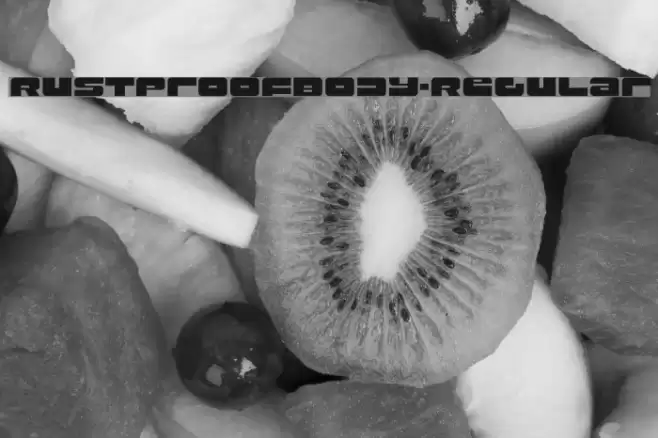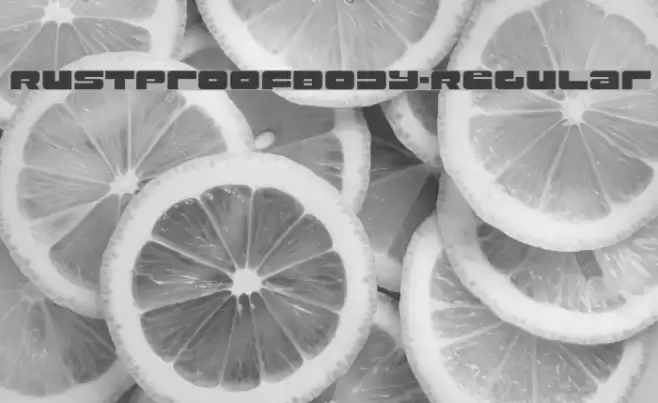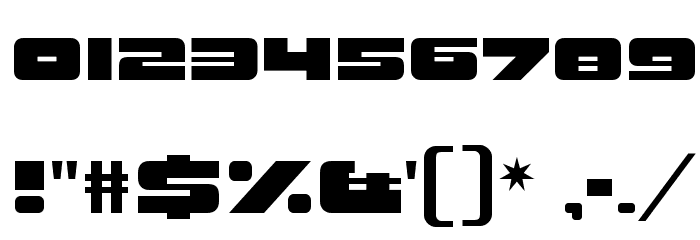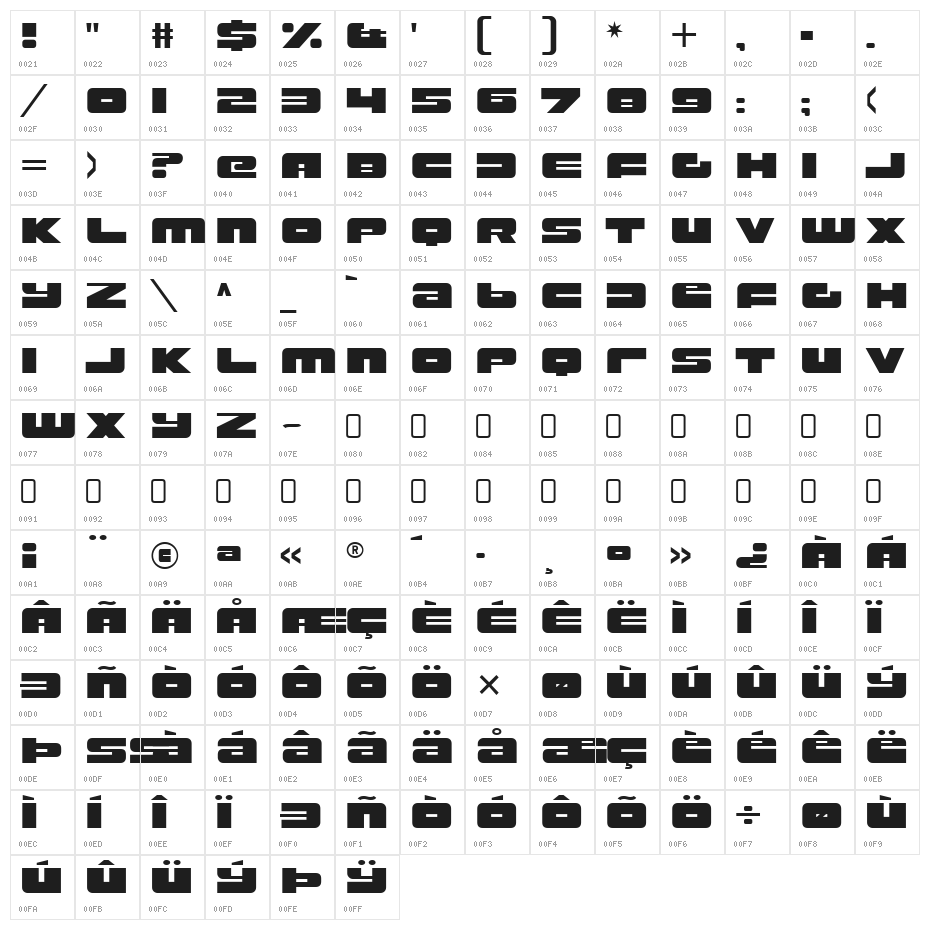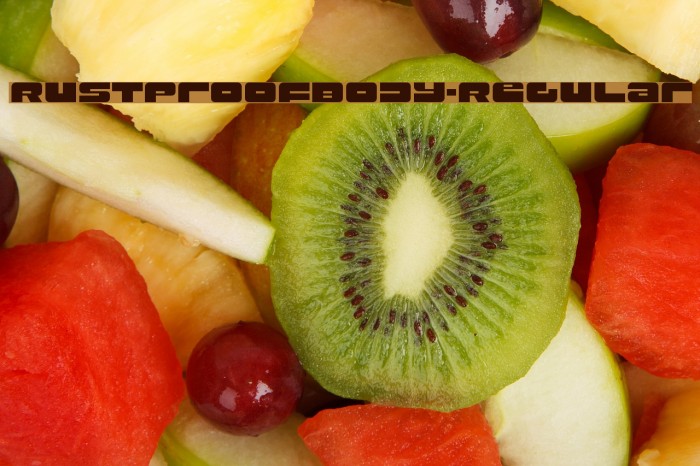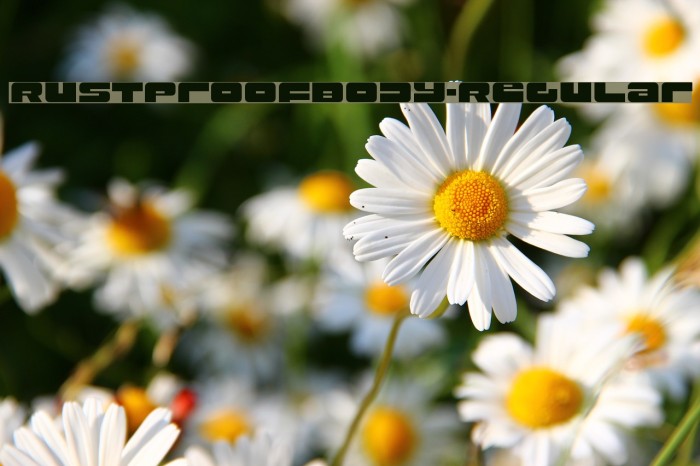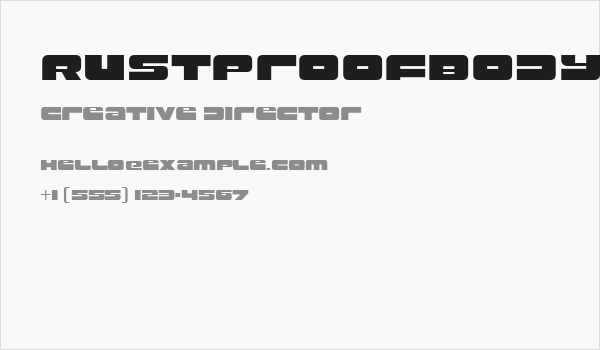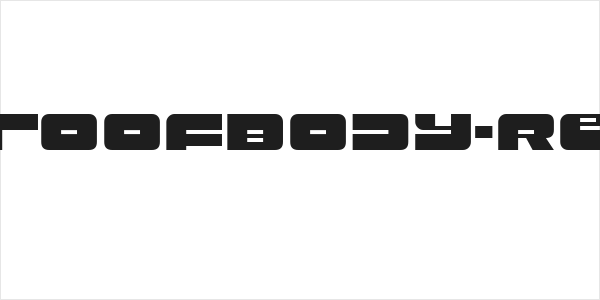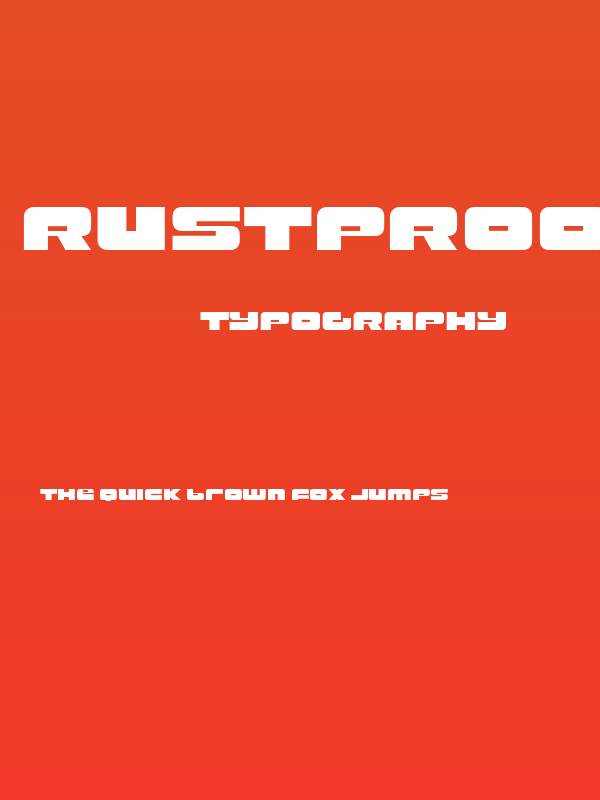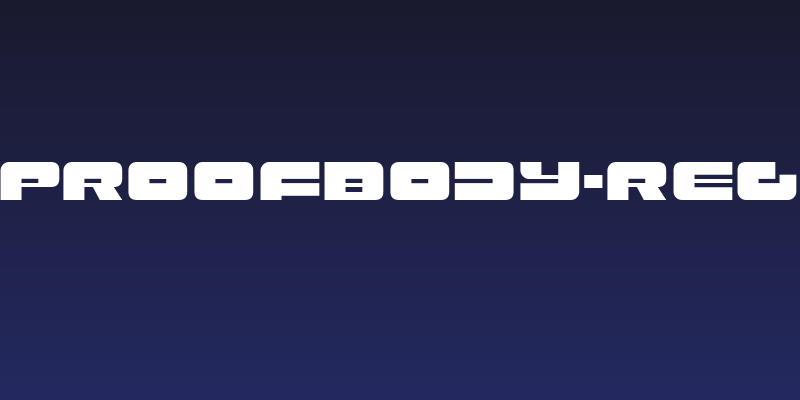
RustproofBody-Regular Font
RustproofBody-Regular Description
This font features a bold, geometric design with a futuristic and industrial feel. The characters are constructed with thick, block-like shapes, giving them a strong and sturdy appearance. The uppercase and lowercase letters maintain a consistent width, contributing to a uniform look across the typeface. The numbers and special characters follow the same robust style, ensuring cohesion throughout. The font's design is reminiscent of digital or mechanical displays, making it ideal for projects that require a modern and tech-savvy aesthetic.
A bold, geometric font with a futuristic and industrial style from Uncategorized fonts.
- Proposed Projects: Ideal for technology branding, video game titles, sci-fi posters, and industrial-themed designs.